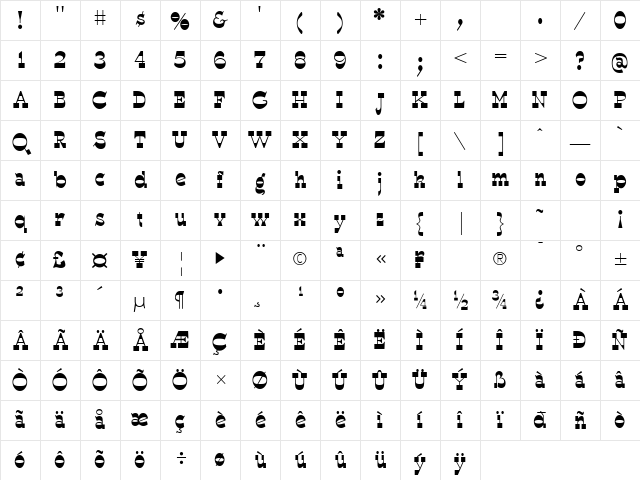
Complete WyomingSpaghetti Bold glyph index. Displaying only characters natively supported by WyomingSpaghetti Bold font.
WyomingSpaghetti is a composed and adaptable typeface that performs quietly and consistently across a wide range of design contexts. Its bold stroke weight gives it real presence on the page.